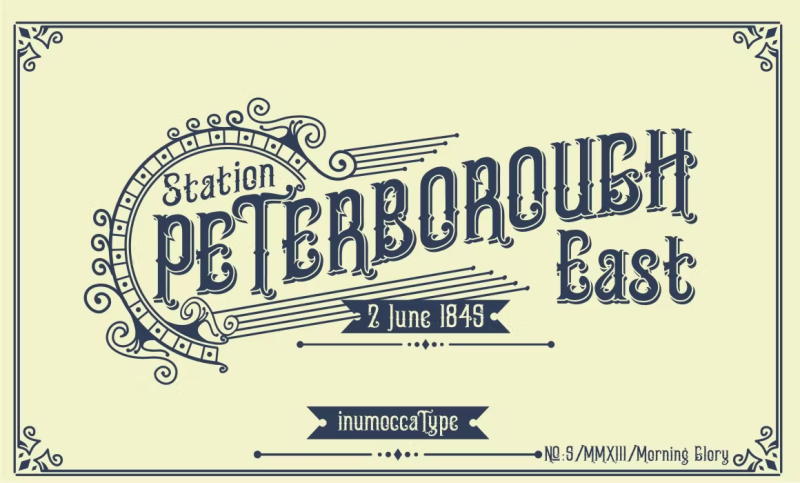
Morning Glory Font
Morning Glory inspired from Victorian age, take a culture of fashions, politic and art its really great font for your band, company, label, clothing company, vintage or…
Morning Glory inspired from Victorian age, take a culture of fashions, politic and art its really great font for your band, company, label, clothing company, vintage or classic stuff, etc
Where Morning Glory Font works best
Headlines and titles
Morning Glory Font has enough character to carry a headline on its own; set it large and keep the supporting text plain.
Brand and product names
Short strings are where this typeface is strongest — a name, a label, a cover line.
Social and video graphics
Set Morning Glory Font over a flat colour or a quiet photograph so the letterforms stay the focus.